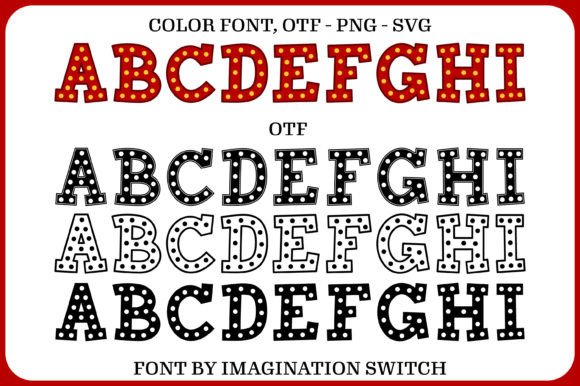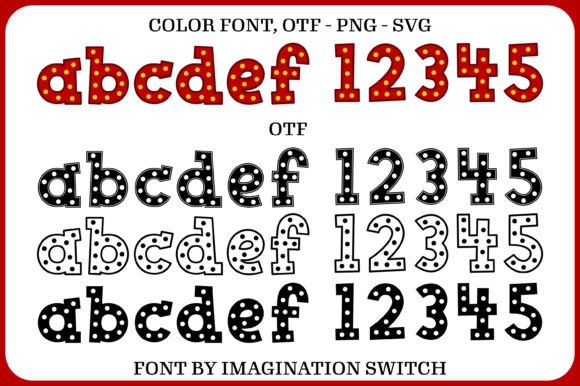
Introduction to Red Show Font
This font is a captivating typographic creation that utilizes intriguing colors to enhance its visual appeal.
With a complete set of characters, including uppercase, lowercase, and numbers, this font has been meticulously designed to provide flexibility across various types of projects When you utilize this font, you introduce uniqueness and creativity to your designs.
Key Features of Red Show Font
Why Choose Red Show Font?
Red Show Font offers exceptional quality and versatility, making it a valuable addition to your design toolkit. Whether you’re creating for personal projects or commercial use, Red Show Font delivers professional results.